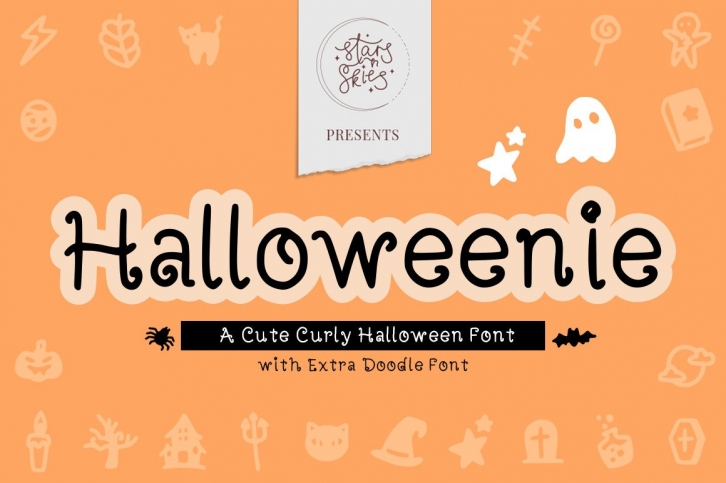
Halloweenie is a cute, curly and charming duo font (handwritten and dingbats). Together or apart, these fonts are ideal for adding a chic and cheery touch to your crafts.